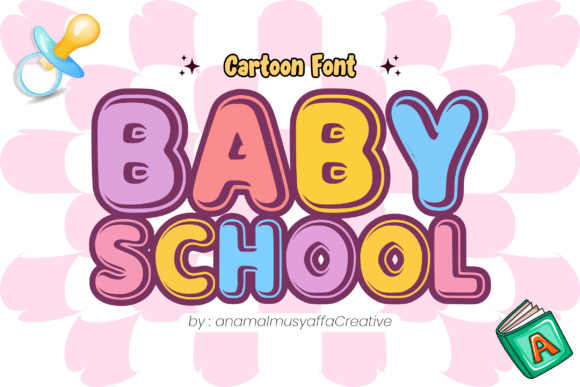
The Perfect Font for Little Creations: Unlocking the Magic of Babyschool Regular Font
Do you remember the first time you designed a logo or created a comic strip for your little one? The excitement, the joy, and the sense of accomplishment that came with it? For designers like you, creating engaging content for kids is not just a task, but a passion. And when it comes to giving your designs that extra oomph, the right font can make all the difference.
Enter Babyschool Regular Font, a modern children’s display font that’s as playful as it is sophisticated. With its uniquely distinguishable characters, this font is perfect for embellishing t-shirts, mugs, and tote bags with sublimation designs. Whether you’re creating a comic title or animation, Babyschool Regular Font takes your designs to another level of charm and sophistication.
Babyschool Regular Font Key Features
- Font Family: Babyschool Regular, a playful and modern sans-serif font.
- Font Size: Supports a wide range of font sizes, from 8pt to 72pt, making it suitable for various applications.
- Resolution: Optimized for high-resolution displays, including Retina and 4K screens, at a resolution of 300 DPI.
- Unique Characteristics: Features a rounded and soft design, perfect for creating a friendly and approachable atmosphere in digital products, branding, and marketing materials.
- Font Style: A single font style, Babyschool Regular, is available, offering a clean and minimalist aesthetic.
Babyschool Regular Font Review
Overall, I’d say the Babyschool Regular Font is a solid choice for designers looking for a clean and playful font. ✨ Here are some of its strengths:
- Unique personality: Babyschool Regular Font has a distinct feel that’s both fun and sophisticated.
- Good legibility: The font is easy to read, even at smaller sizes.
- Great for digital use: It works well in various digital applications, from web to mobile.
However, like any font, it’s not perfect. ✨ Here are some limitations:
- May not be suitable for formal documents: The font’s playful nature might not be fitting for formal or professional contexts.
- Limited availability in some languages: Babyschool Regular Font might not have comprehensive language support, which could be a concern for multilingual projects.
- Not ideal for small text: At very small sizes, the font can become difficult to read.
Overall, I think Babyschool Regular Font is a great choice for designers who want a unique and engaging font for their projects. It’s versatile, easy to read, and has a lot of character. Just be mindful of its limitations, and you’ll be good to go!
Tips for Getting the Most Out of Babyschool Regular Font
Use Babyschool Regular Font for titles, headings, and body text in designs that require a friendly and approachable tone.
Combine Babyschool Regular Font with other fonts to create a unique and visually appealing typography style.
Experiment with different font sizes and colors to add emphasis and create visual hierarchy in your design.
Babyschool Regular Font is ideal for:
Children’s book covers and illustrations
Education and learning materials
Child-friendly websites and apps